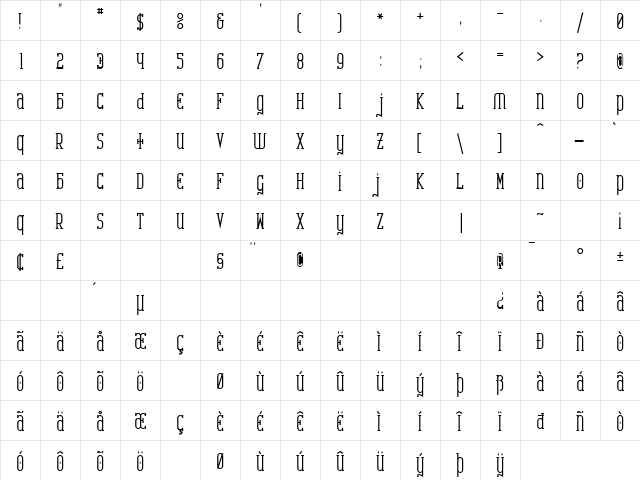
Catharsis Requiem Bold
Design Context for Catharsis Requiem Typeface
Catharsis Requiem is a composed and adaptable typeface that performs quietly and consistently across a wide range of design contexts. The heavy weight commands attention and anchors typographic hierarchies.